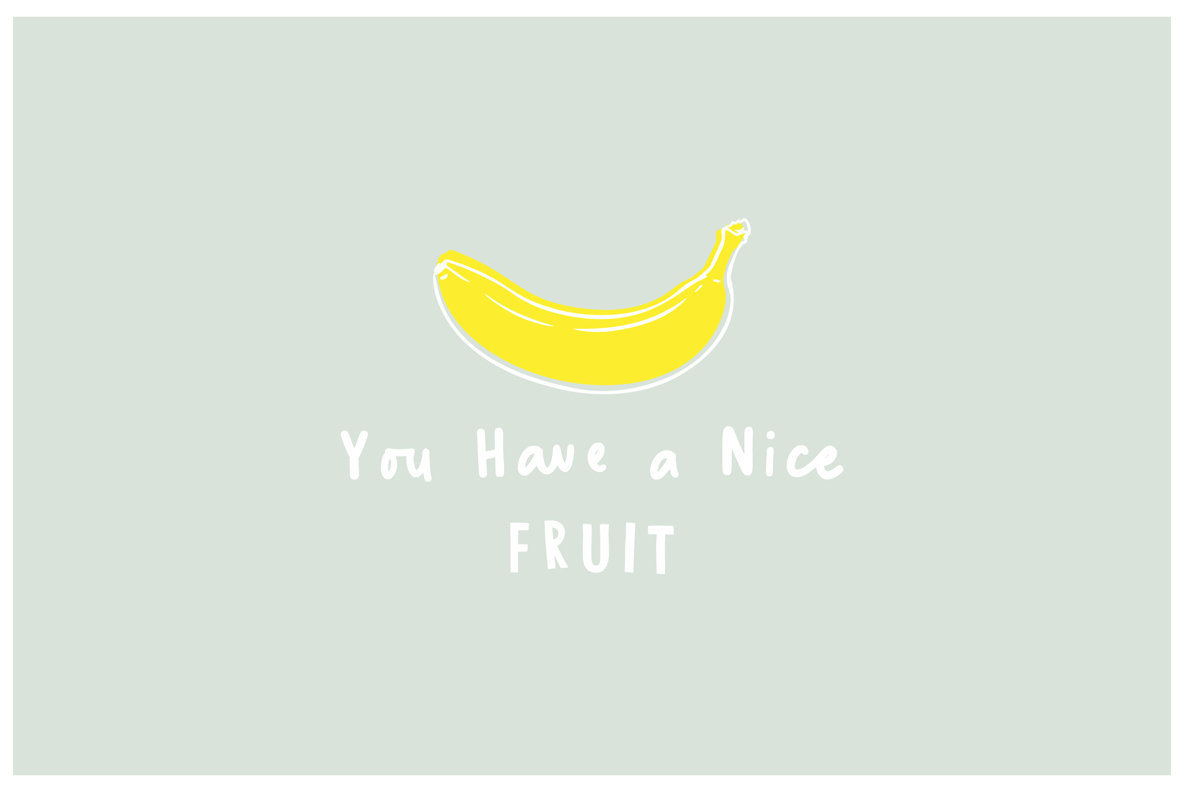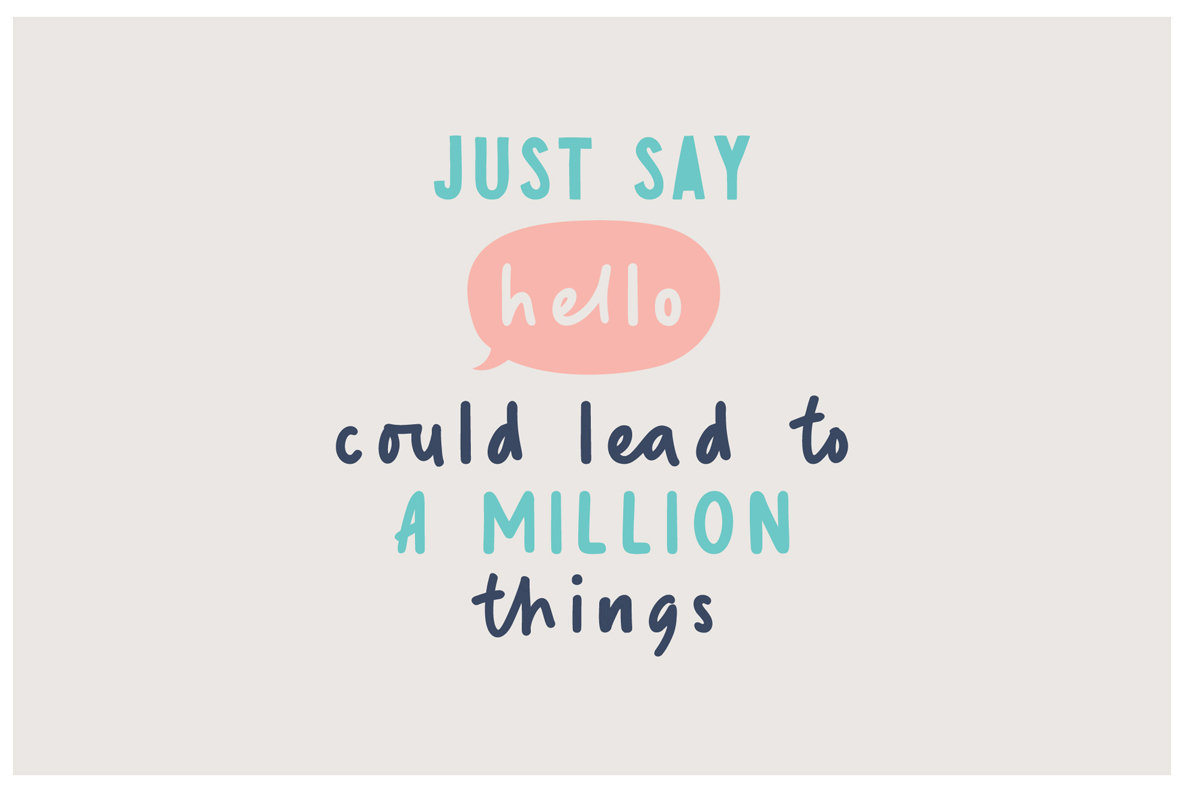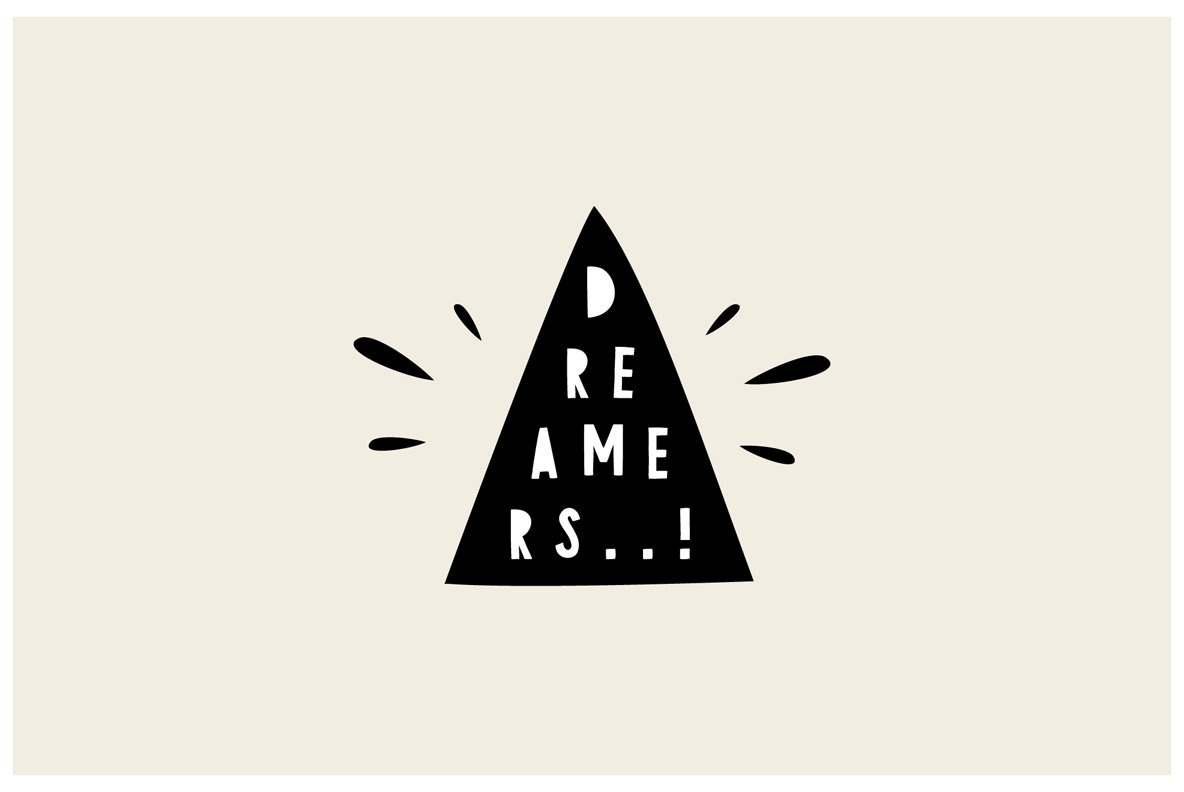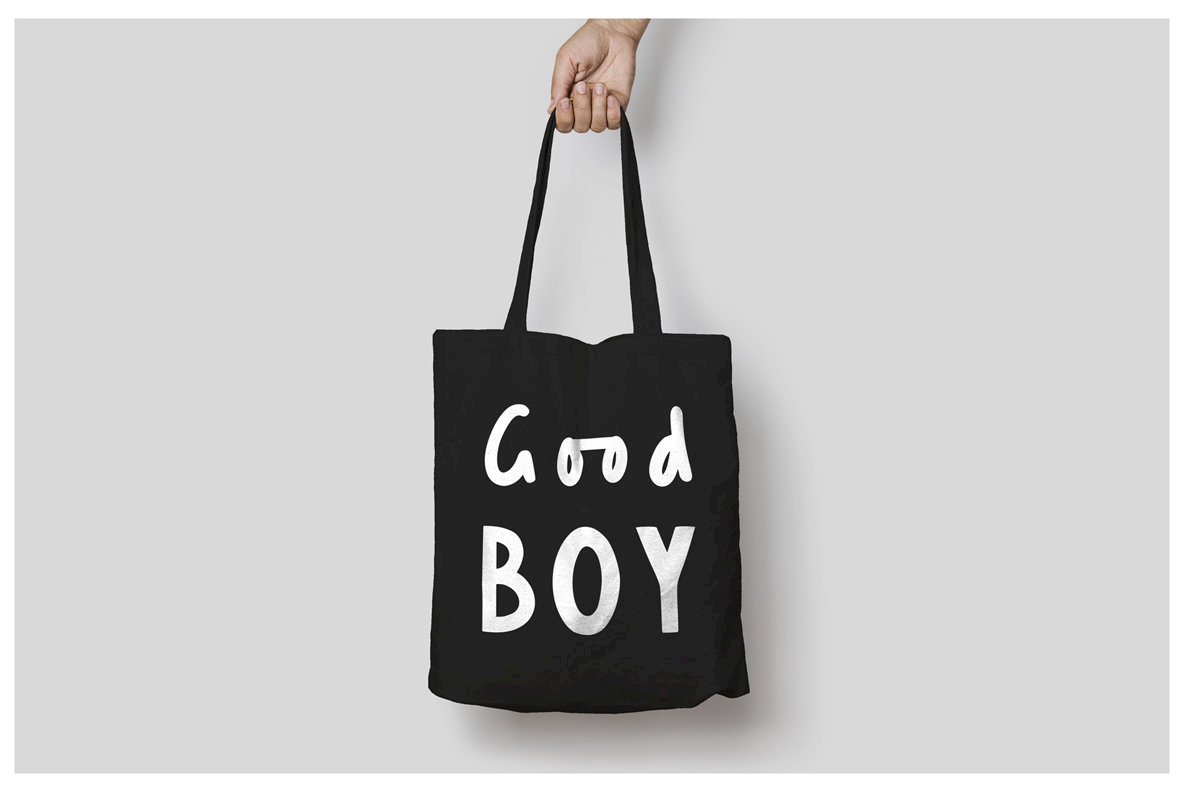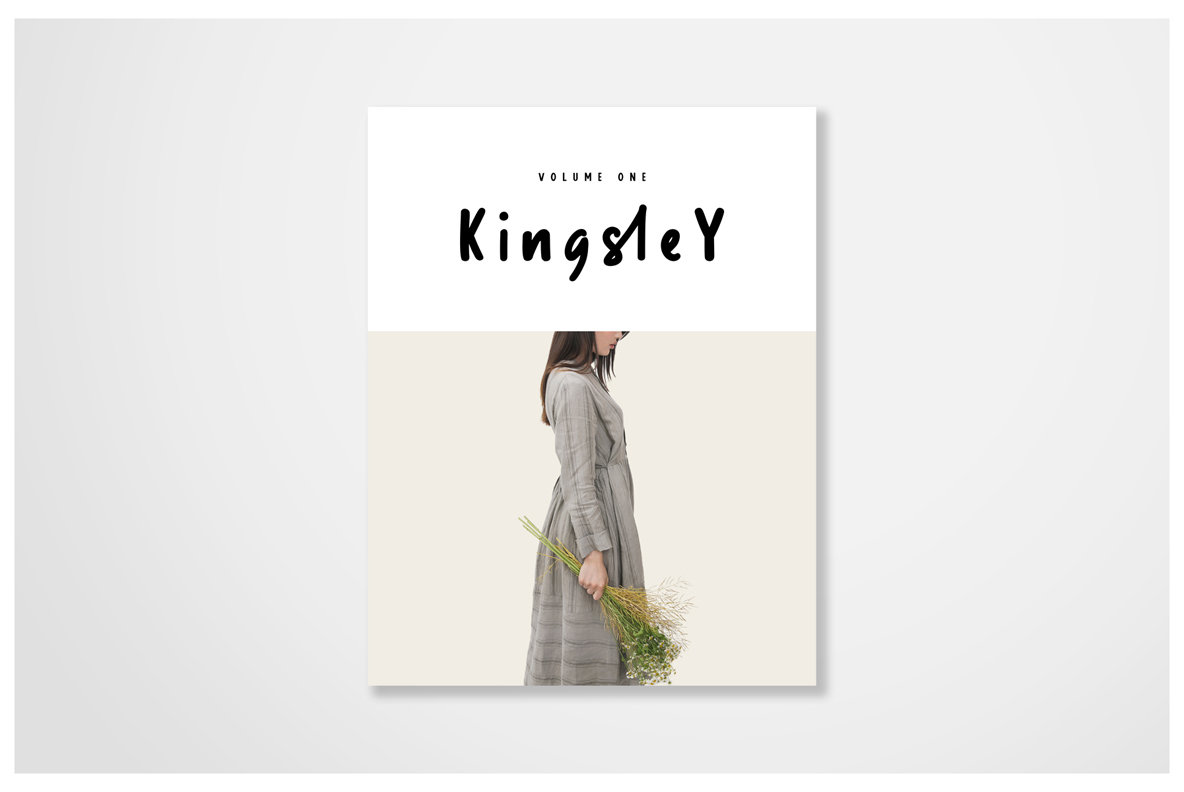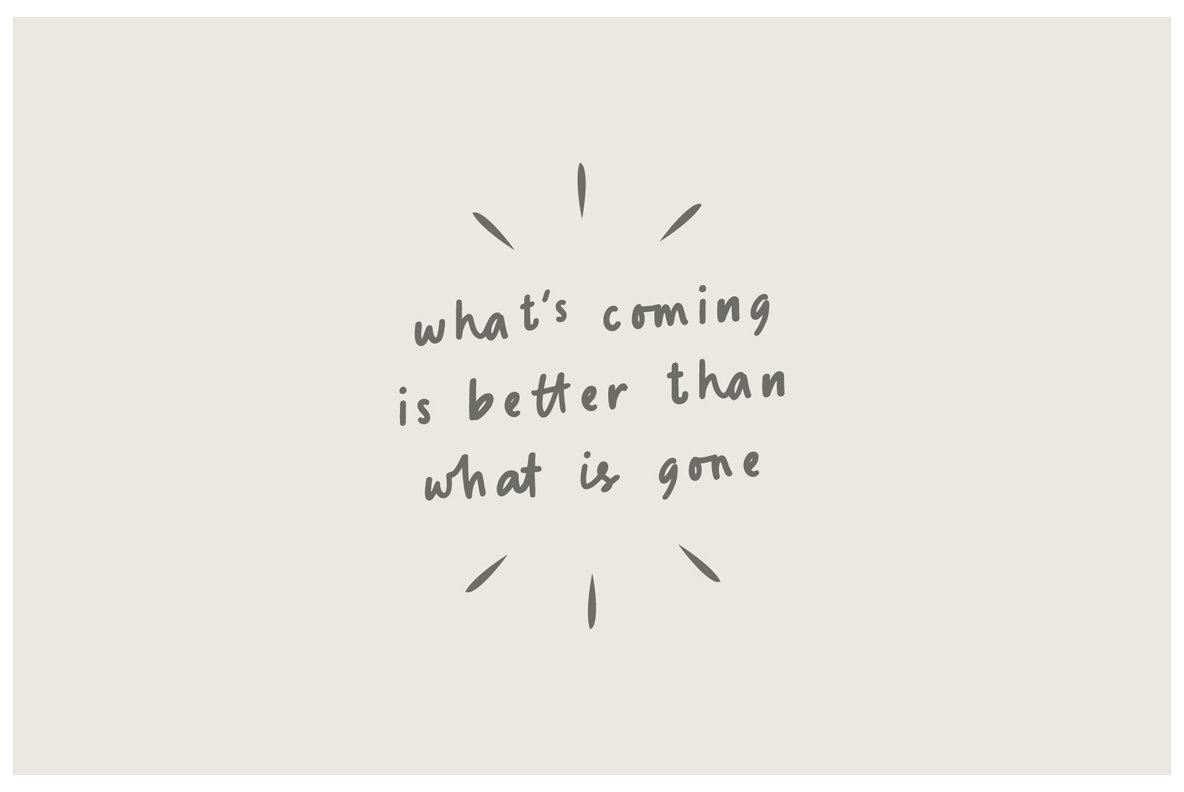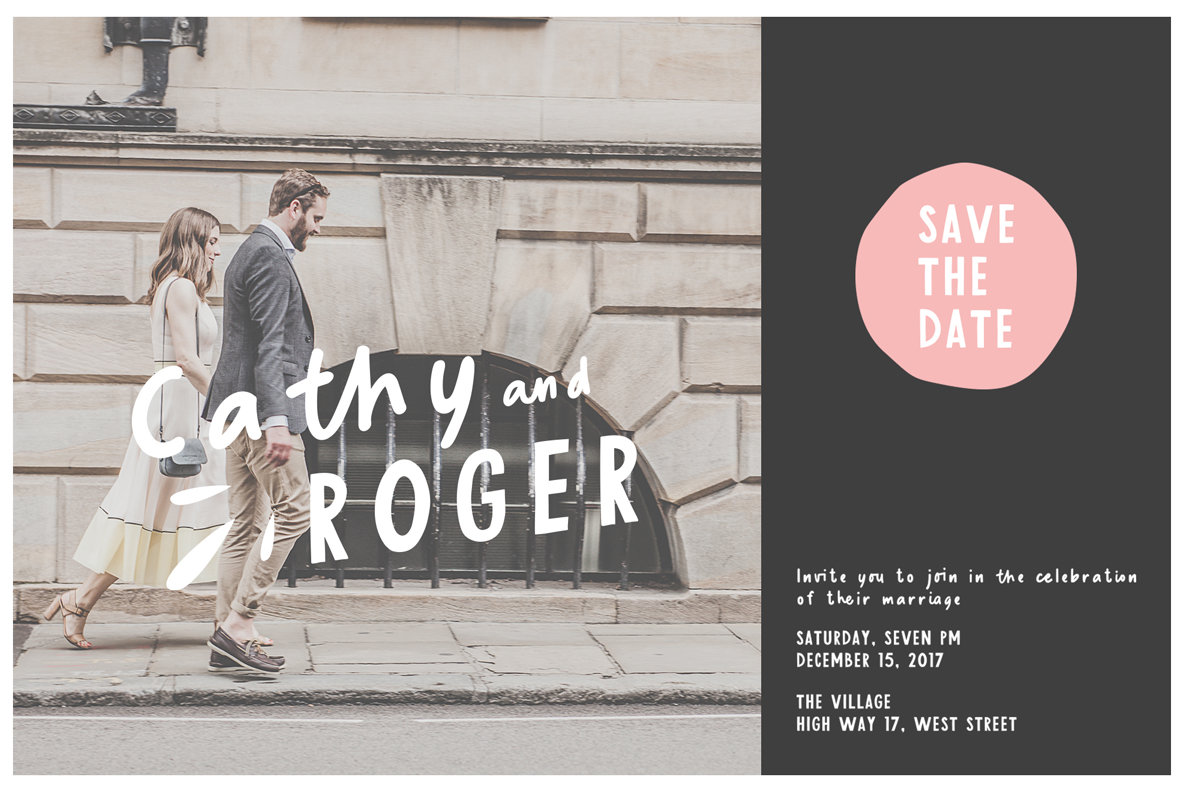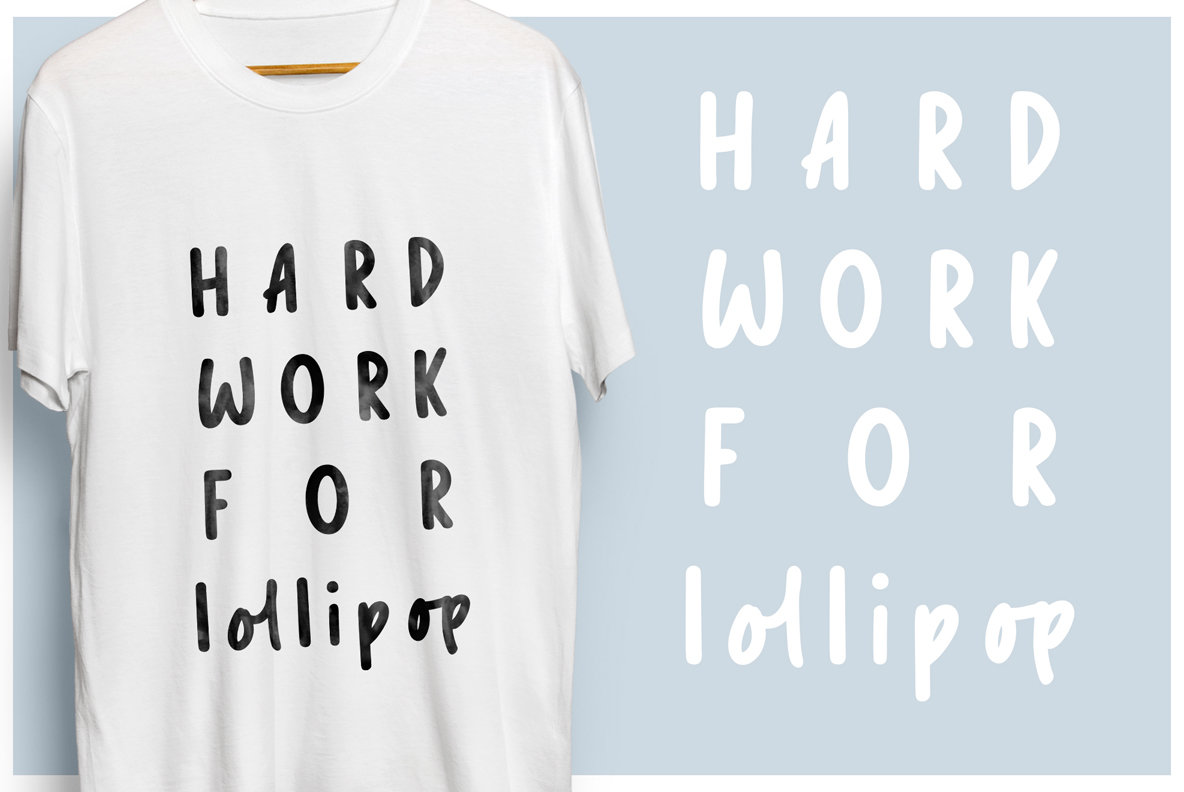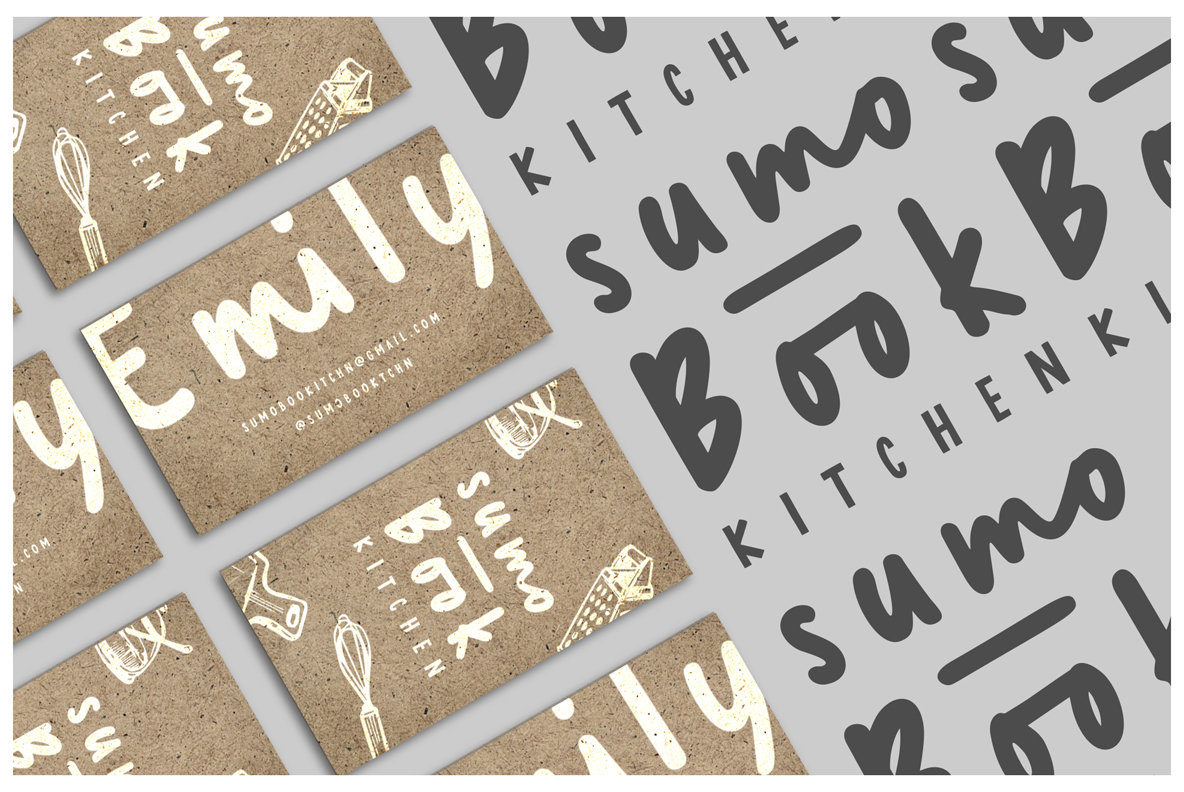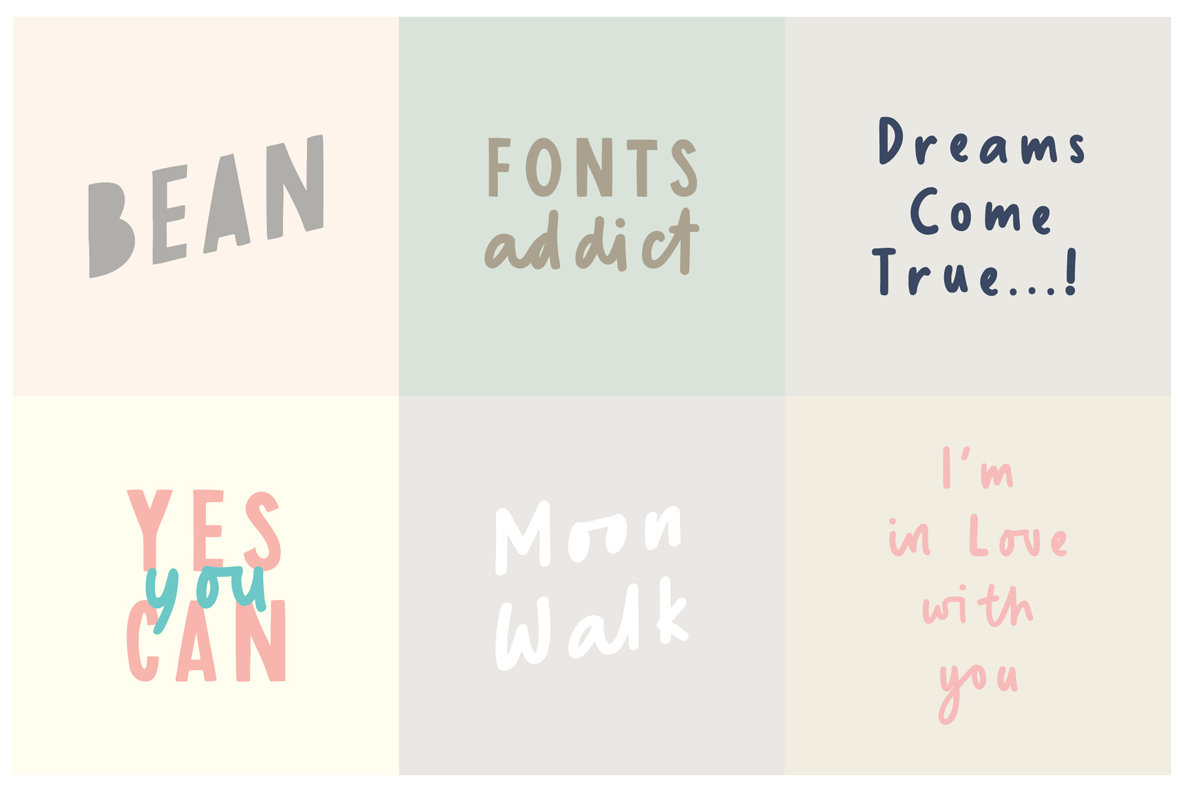
Sumo Book: A Handwritten Typeface with Playful Charm
The Sumo Book Typeface by Angga Mahardika offers a delightful blend of simplicity and playfulness. Enliven your designs with its clean lines and 273 distinctive ligatures that bring a unique flair to any project.
• Handwritten Appeal – Ideal for adding a personal touch.
• Multilingual Support – Includes characters for multiple languages.
• Versatile Usage – Perfect for quotes, logos, insignias, and more.
Enjoy the creative flexibility of Sumo Book, making your designs stand out with its effortless charm.